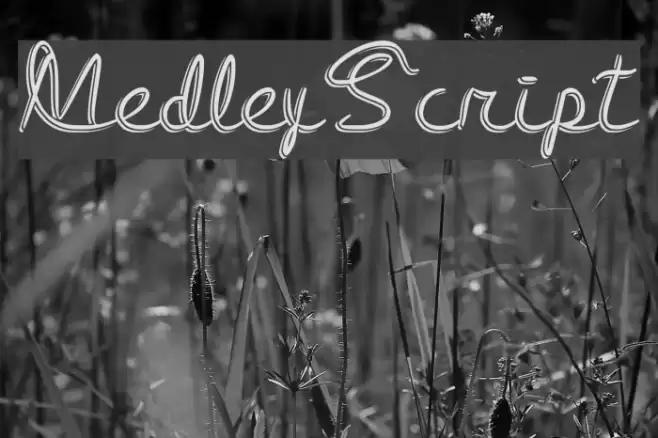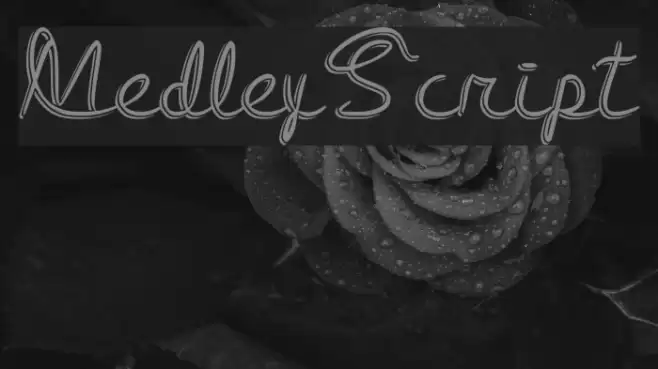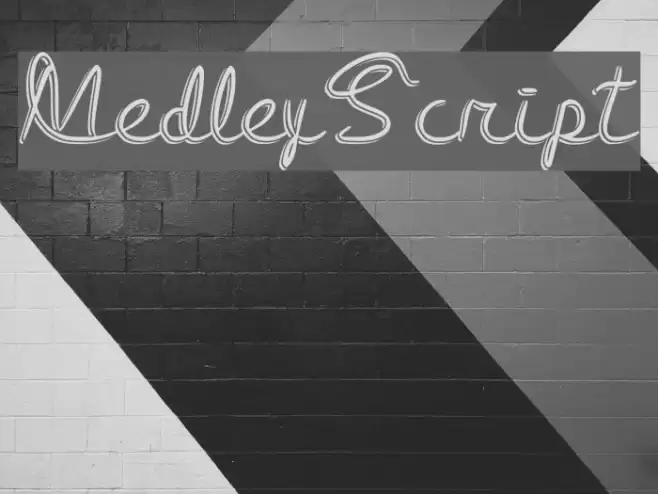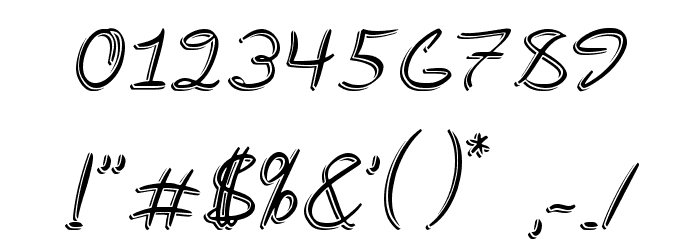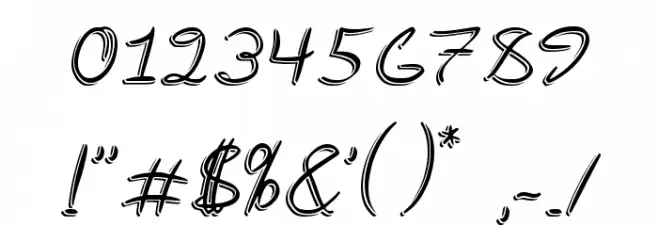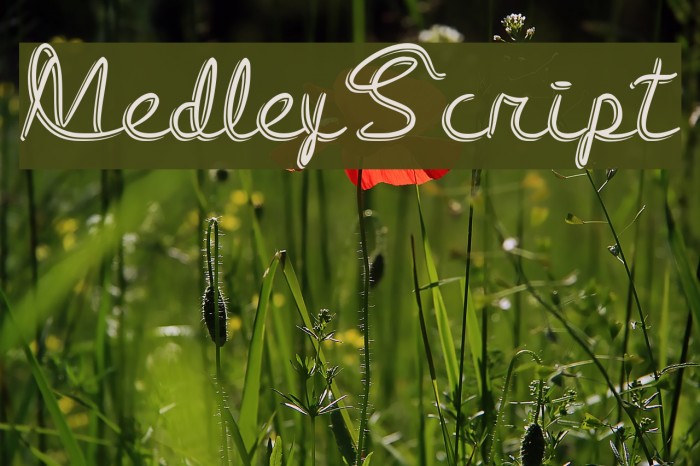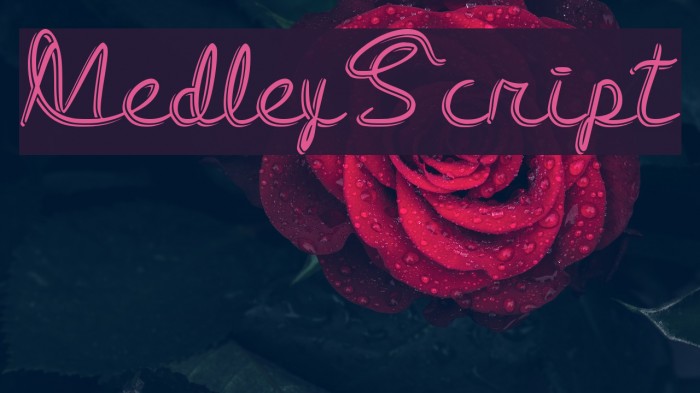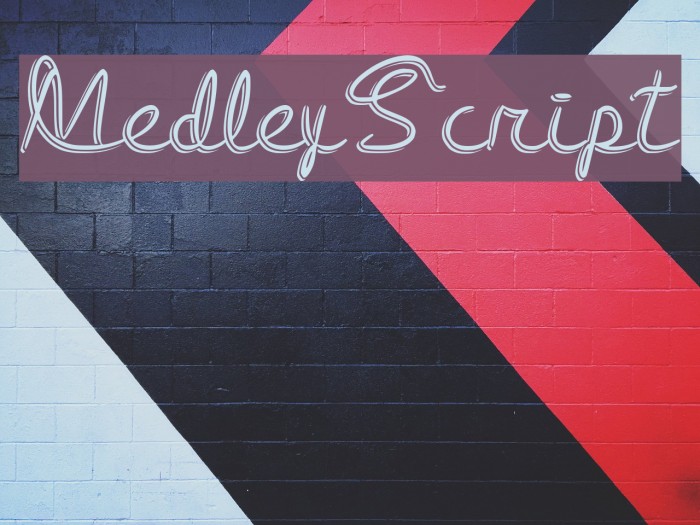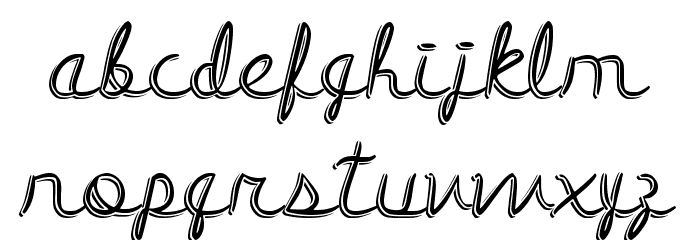
Medley_Script Font
Medley_Script Description
This script font features an elegant and flowing design, characterized by its smooth, cursive strokes and a sense of fluidity. The letters are interconnected, creating a seamless and harmonious appearance. The uppercase letters exhibit a graceful flair, while the lowercase letters maintain a consistent rhythm. The numbers and special characters are designed to complement the overall aesthetic, ensuring a cohesive look across all elements. This font exudes a sense of sophistication and charm, making it suitable for projects that require a touch of elegance.
An elegant script font with flowing, interconnected cursive strokes from Uncategorized fonts.
- Overall Style: Elegant